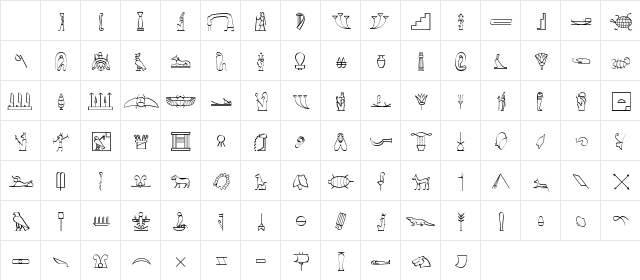
Complete Hieroglyphic Decorative glyph index. Displaying only characters natively supported by Hieroglyphic Decorative font.
Hieroglyphic is built around its visual character rather than neutral utility - its distinctive forms are designed to make an impression at display sizes.
Font Pairing: Pair with a clean neutral sans-serif for body copy to let Hieroglyphic's character lead without overwhelming the composition.
Pro Tip: Use Hieroglyphic exclusively at display sizes - it was designed to be seen, not read at length. Let a neutral companion handle body copy.